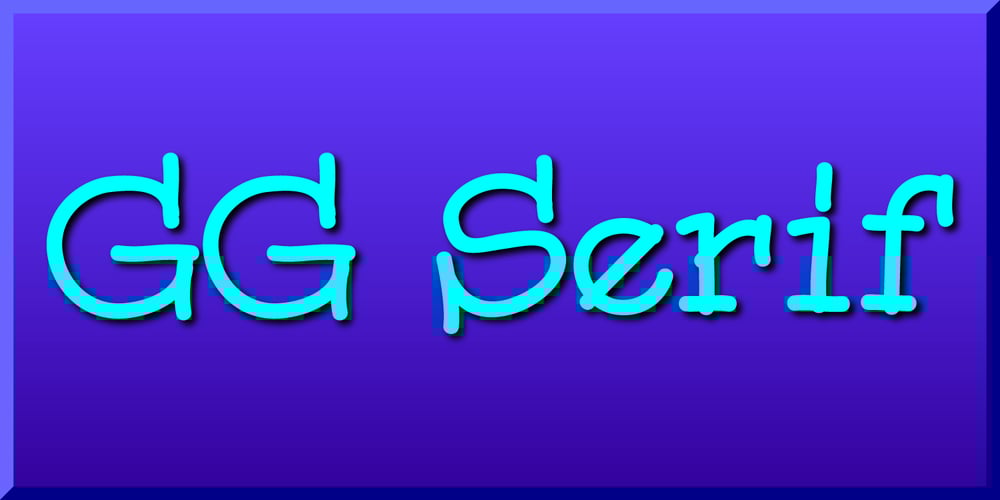
GG Serif
GG Serif font
GG Serif Font Family was designed by Gerald Gallo and published by Gerald Gallo. GG Serif contains 1 styles and family package options. GG Serif is a hand-drawn serif font created from the hand lettering of the designer.